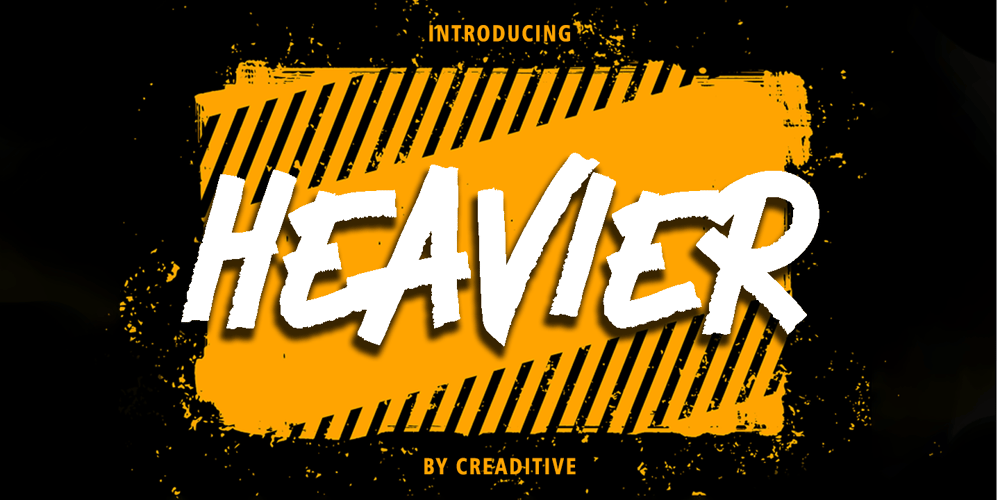
Heavier Font Family was designed by Aditiyo Dwi Putranto and published by Creaditive Design. Heavier contains 2 styles and family package options. Heavier is a cool, bold and brushed display font. No matter the topic, this font will be an incredibly asset to your fonts library, as it has the potential to elevate strong creation.